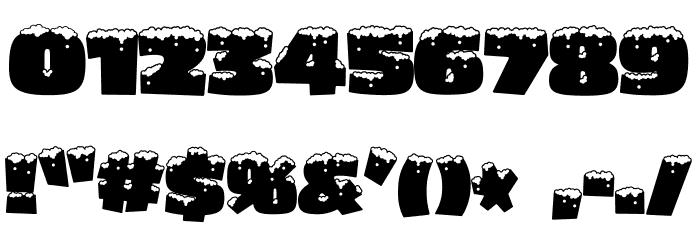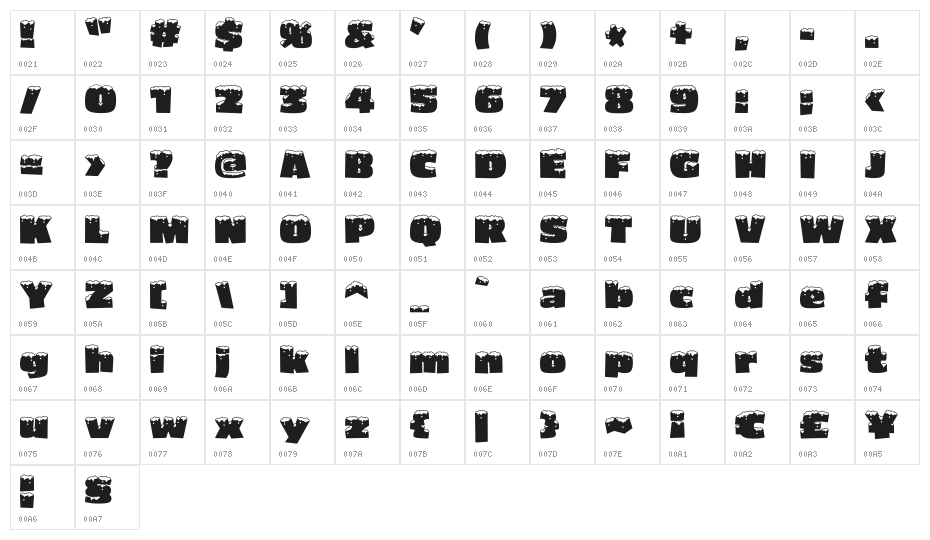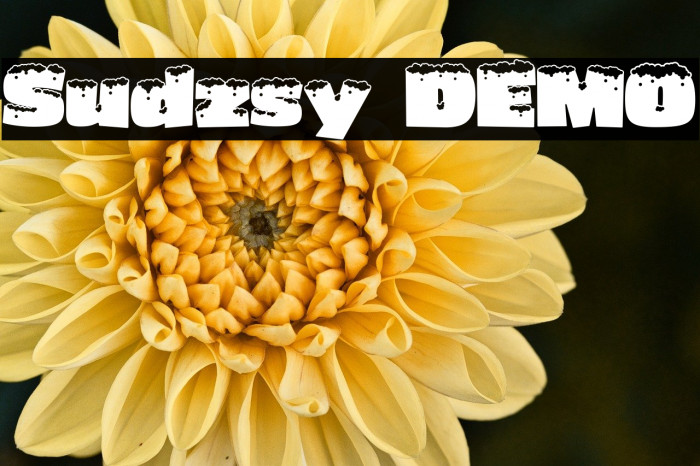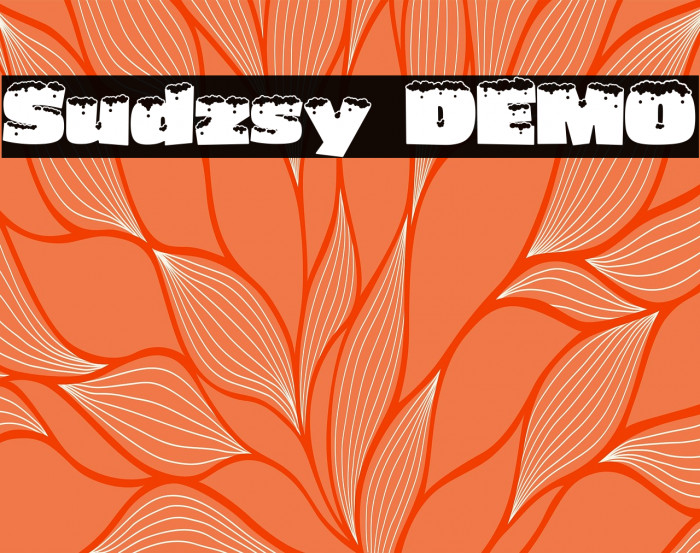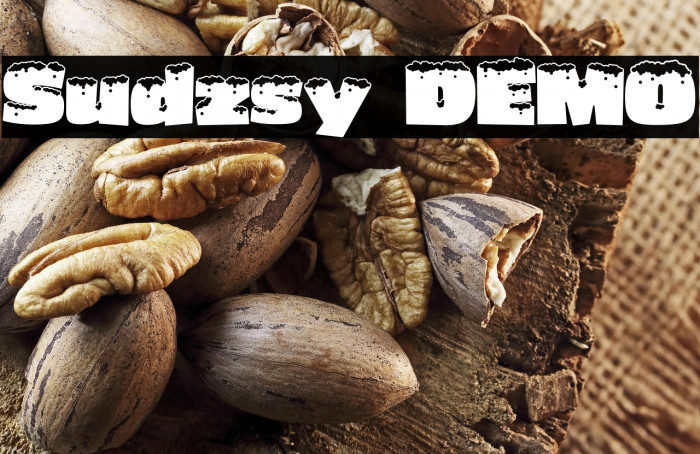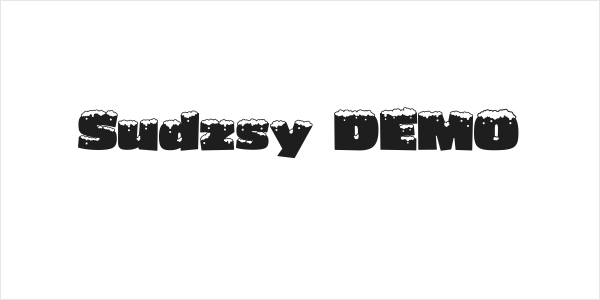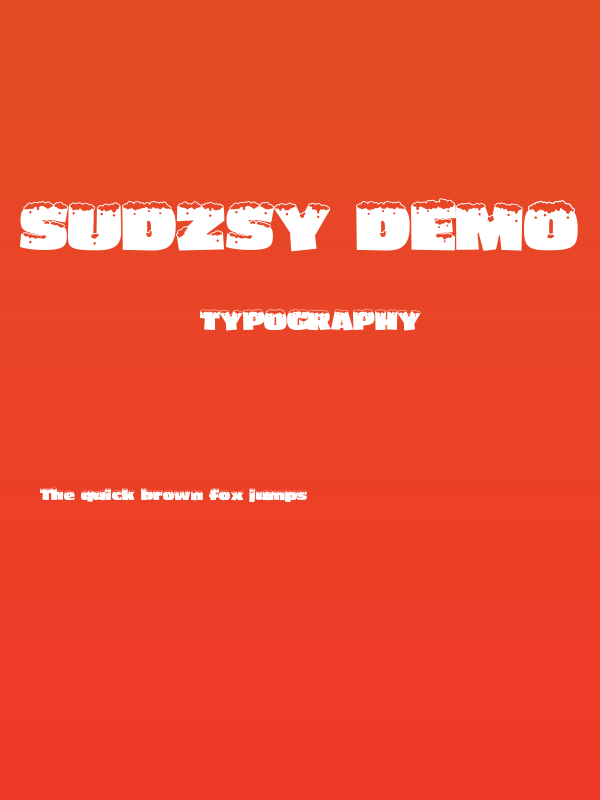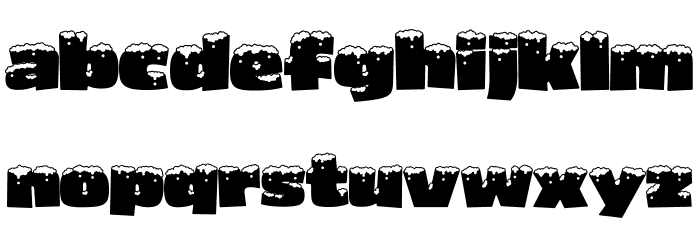
Sudzsy DEMO Font
This playful and bold font features a unique snow-capped design on each character, giving it a whimsical and festive appearance. The letters are thick and rounded, providing a strong visual impact. The snow detail adds a textured, decorative element that makes it stand out, perfect for winter-themed projects or holiday promotions. The uppercase and lowercase letters maintain consistent styling, while numbers and special characters are equally adorned with the snow effect, ensuring a cohesive look across all text elements.
| Proposed Projects | Ideal for holiday cards, winter festival posters, children's book covers, and festive event invitations. |